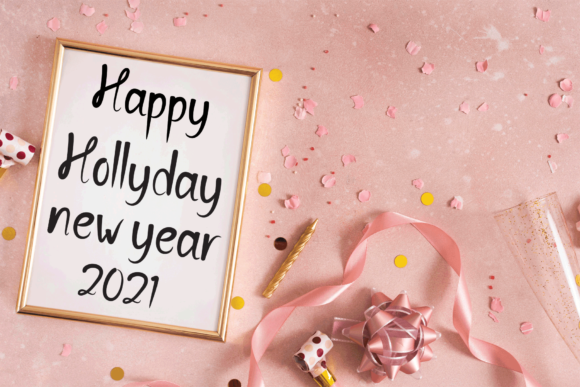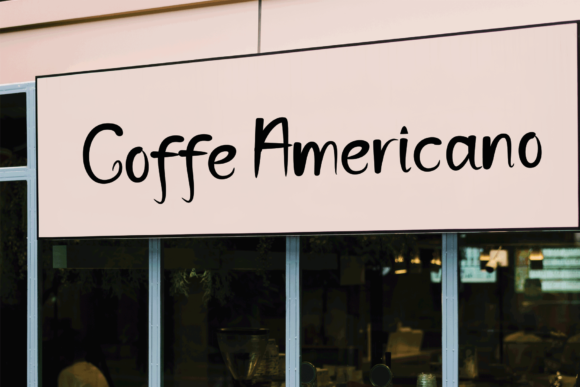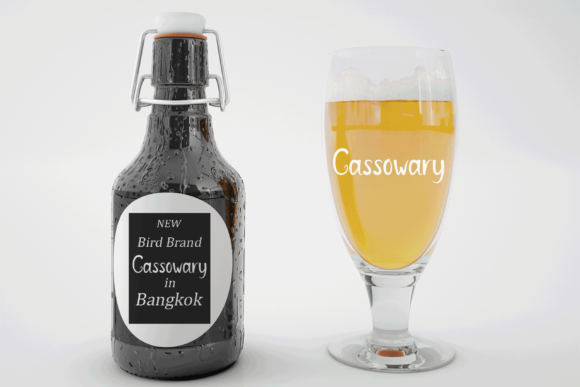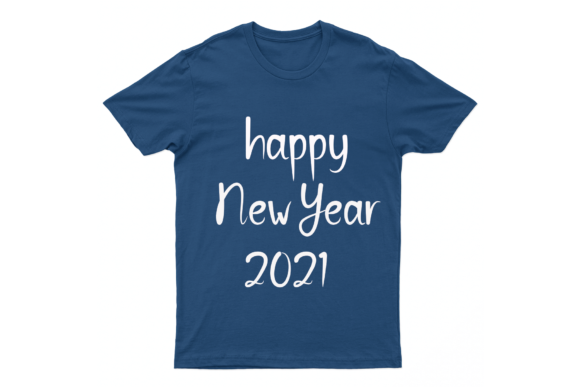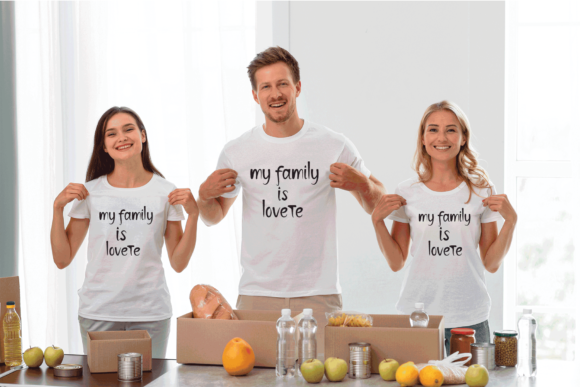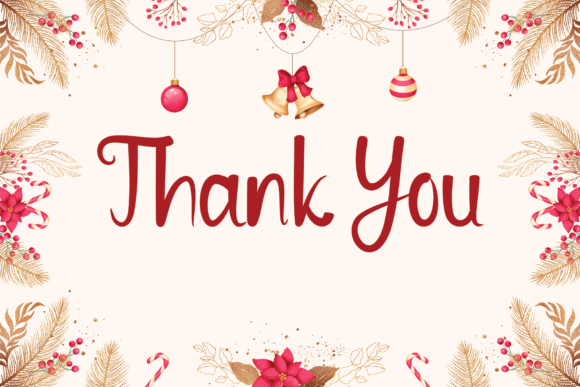
The Joy of Handwritten Charm: Introducing the Angilova Font
Have you ever sat down with a blank sheet of paper and a pen, feeling the urge to create something special? The thrill of bringing a new idea to life is exhilarating, and for designers, this feeling is especially true. It’s moments like these that spark the imagination and lead to some of the most beautiful and unique designs.
Enter the Angilova Font, a romantic and joyful handwritten font that adds a personal touch to any design. Perfect for wedding invitations, thank you cards, and other special occasions, this font is a valuable asset for designers looking to create one-of-a-kind pieces. With its playful, cursive script, the Angilova Font brings a sense of whimsy and elegance to any project, making it a must-have for any design enthusiast.
Key Features of Angilova Font
- Font Family: Angilova, Angilova Bold, Angilova Italic, Angilova Bold Italic
- Character Set: Supports over 100 languages, including Latin, Cyrillic, and Greek alphabets
- Unique Characteristics: Distinctive, elegant, and modern design with subtle nuances in letterform shapes and proportions, making it suitable for a wide range of applications, from editorial and advertising to branding and packaging
Angilova Font Review
I recently had the chance to work with the Angilova Font, and I must say it’s an interesting addition to my design toolkit. ✨ Here are some of its strengths and weaknesses.
- ✨ Unique aesthetic: The Angilova font has a distinct, hand-drawn feel that can add a touch of personality to any design.
- ✨ Versatility: It works well in both digital and print applications, making it a great choice for designers who need a versatile font.
- ✨ Readability: Despite its unconventional appearance, the Angilova font is surprisingly easy to read, even at smaller font sizes.
- ⚠️ Limited font sizes: The Angilova font doesn’t come with a wide range of font sizes, which can make it difficult to use in certain situations.
- ⚠️ Kerning issues: I noticed some kerning issues with certain letter combinations, which can affect the overall appearance of the text.
Overall, the Angilova font is a solid choice for designers who want to add some visual interest to their projects. While it has some limitations, its unique aesthetic and versatility make it a worthwhile addition to any design toolkit.
Tips for Getting the Most Out of the Angilova Font
Use the Angilova Font for titles, headings, and other emphasis text to add a touch of elegance to your designs.
Pair the Angilova Font with other serif or script fonts to create a unique and visually appealing typography.
Experiment with different font sizes, colors, and styles to create a custom look that suits your design needs.
Alternatives to Angilova Font1. Montserrat Font
Montserrat Font is a sans-serif font designed for urban environments. It’s a modern and clean font ideal for use in headings and body text. Montserrat is a great alternative to Angilova Font when you need a more neutral and versatile font.
Comparison: Montserrat Font has a more geometric and minimalist feel compared to Angilova Font, which has a more organic and elegant feel. Montserrat is also more legible at smaller font sizes.
2. Playfair Display Font
Playfair Display Font is an elegant and luxurious serif font perfect for use in headings and titles. It’s a great choice for designers who want to add a touch of sophistication and elegance to their designs.
Comparison: Playfair Display Font is more formal and traditional compared to Angilova Font, which has a more modern and edgy feel. Playfair Display Font is ideal for use in formal and high-end designs.